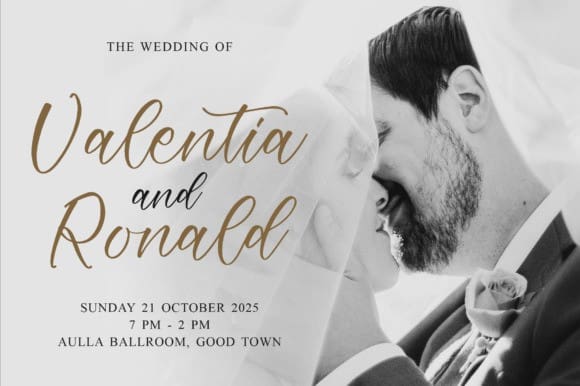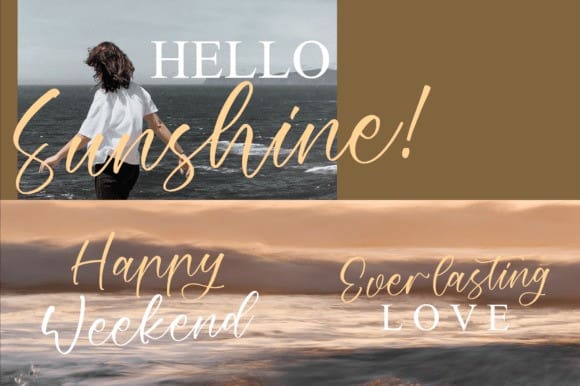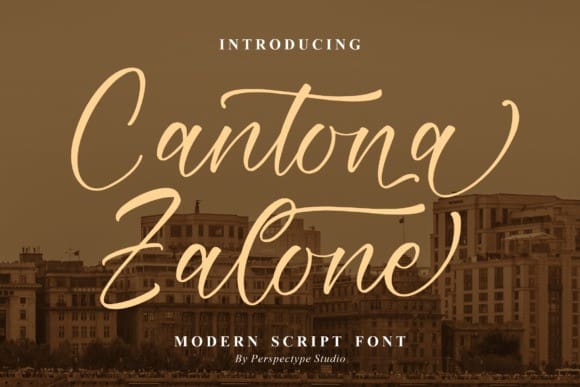
Cantona Zalone Font
Cantona Zalone Font is a modern script font. This font is suitable for any projects such as logos, branding projects, homeware designs, product packaging, mugs, quotes, posters, shopping bags, t-shirts, book covers, name cards, invitation cards, greeting cards, labels, photography, watermark, special events, and all your other lovely projects that need a beautiful script taste.